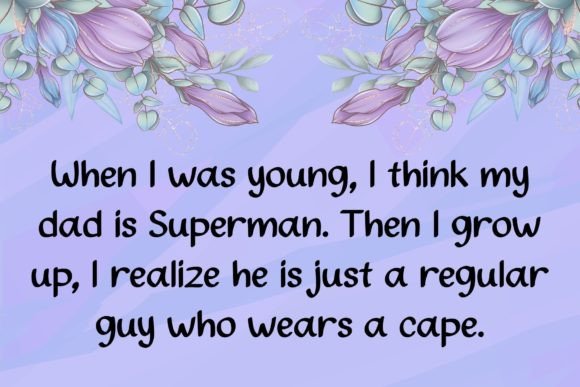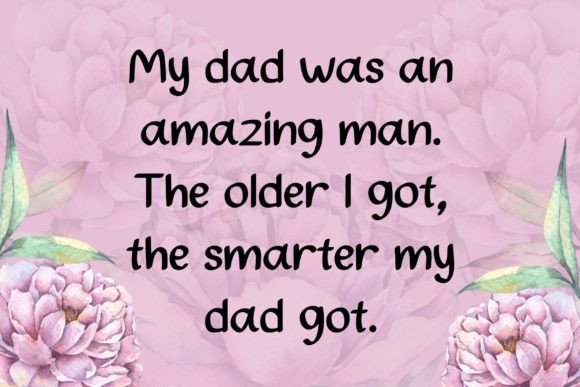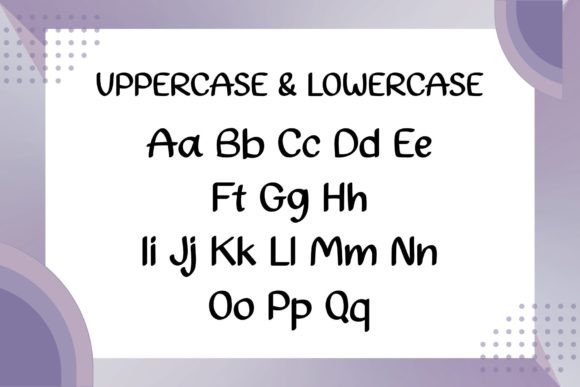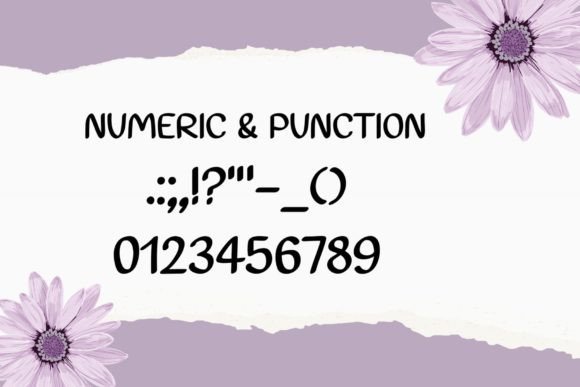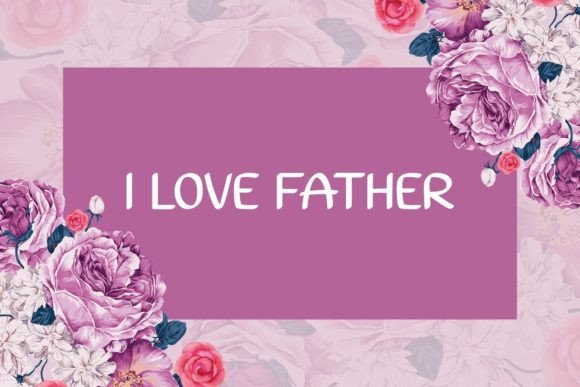
Creating a Heartfelt Tribute to Dad
Have you ever sat down with a blank piece of paper, trying to come up with the perfect words to express your love and appreciation for your dad? The pressure can be overwhelming, but what if you had a tool that made it easy to convey your feelings in a beautiful and unique way?
Enter the I Love Father Font, a playful and stylish font designed specifically for expressing love and gratitude to dads everywhere. This font is perfect for creating heartfelt cards, posters, social media graphics, and more, making it a valuable resource for designers looking to add a personal touch to their projects. With its bold and whimsical design, the I Love Father Font is sure to catch the eye and capture the heart, making it the perfect choice for Father’s Day, birthdays, or any occasion where you want to let your dad know how much he means to you.
I Love Father Font Key Features
- Font Family: A unique and custom-designed font family, specifically created for expressing love and appreciation for fathers.
- Unique Characteristics: Features a distinctive, handwritten style with a mix of bold and cursive elements, making it perfect for creating personalized and heartfelt messages.
I Love Father Font Review
I recently had the chance to work with the “I Love Father Font” and I have to say, it’s a unique and interesting font. ✨ One of the things that stood out to me was the playful, handwritten feel of the font. It’s perfect for projects that need a bit of whimsy and personality. ✨ The font also comes in a range of styles and weights, making it easy to customize to fit your needs.
However, I do have a few limitations to mention. ⚠️ The font can be a bit hard to read at smaller sizes, and the irregular spacing between letters can make it difficult to use for body text. Additionally, the font’s quirky charm may not be for everyone – some designers may find it too playful or cursive. ⚠️
- Playful, handwritten feel
- Range of styles and weights
- Perfect for projects that need a bit of whimsy and personality
- May be difficult to read at smaller sizes
- Irregular spacing between letters
Overall, I think the “I Love Father Font” is a great choice for designers who want to add a bit of personality to their projects. With its unique feel and customization options, it’s a great tool to have in your arsenal. Just be mindful of its limitations and use it judiciously.
Getting the Most Out of the Font
To get the most out of the “I Love Father Font,” consider the following tips:
– Use the font in bold or italic styles to add emphasis.
– Combine the font with other fonts to create a unique look.
– Experiment with different font sizes and colors to achieve a desired effect.
The “I Love Father Font” is commonly used for:
– Father’s Day cards and gifts
– Personalized father-son or father-daughter photo albums
– Custom t-shirts and hoodies with father-themed designs
Alternatives to I Love Father Font
Great Vibes is a beautiful, handwritten font that is perfect for creating a casual, laid-back atmosphere. It’s ideal for use in headings, titles, and quotes, especially in design projects that require a touch of elegance and sophistication.
Great Vibes Font is similar to I Love Father Font in its cursive and handwritten style, but it has a more refined and polished look. While I Love Father Font is more playful and informal, Great Vibes Font is more sophisticated and elegant, making it a great choice for designs that require a touch of class.